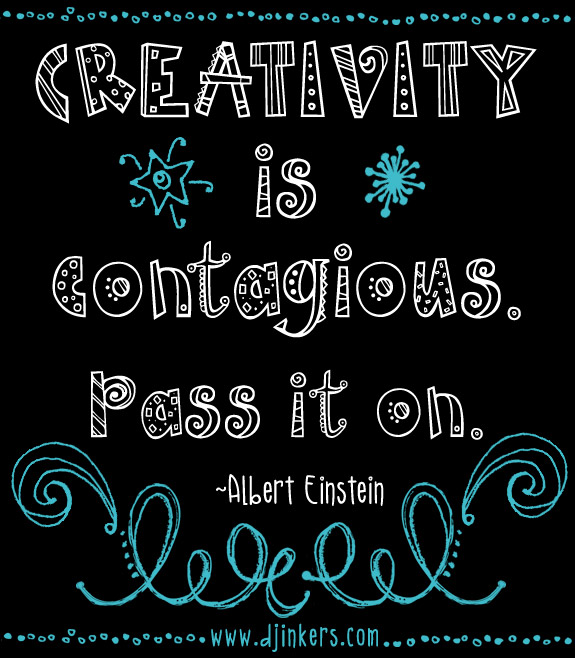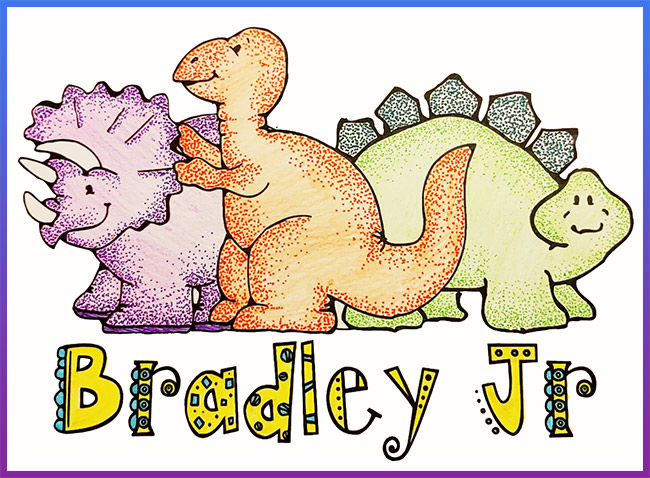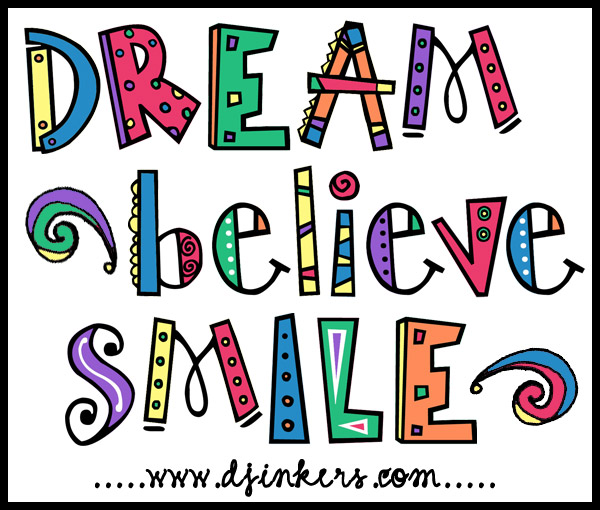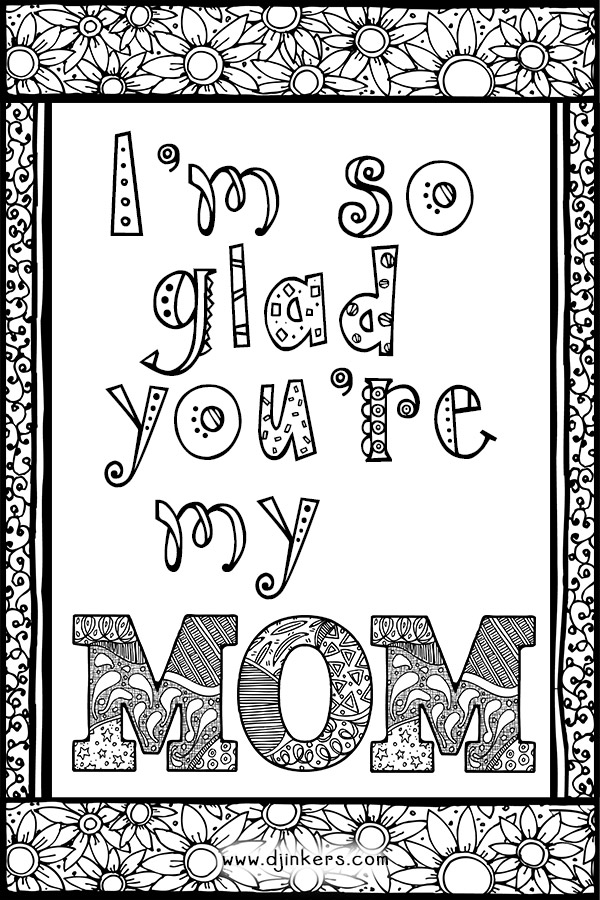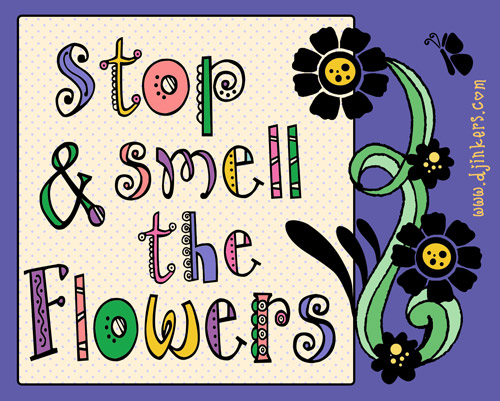
DJ Addie Font Download
Our wild & crazy DJ Addie font is so much fun! Every letter
is doodled differently... so it's perfect for projects that need a little
something sassy. Looks best in larger sizes & bright, bold colors.
You'll love this playfully mismatched font for typing smiles.